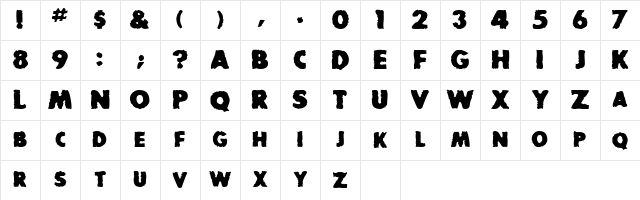
Complete BadDogSCapsSSK Bold glyph index. Displaying only characters natively supported by BadDogSCapsSSK Bold font.
BadDogSCapsSSK is a composed and adaptable typeface that performs quietly and consistently across a wide range of design contexts. Its bold stroke weight gives it real presence on the page.